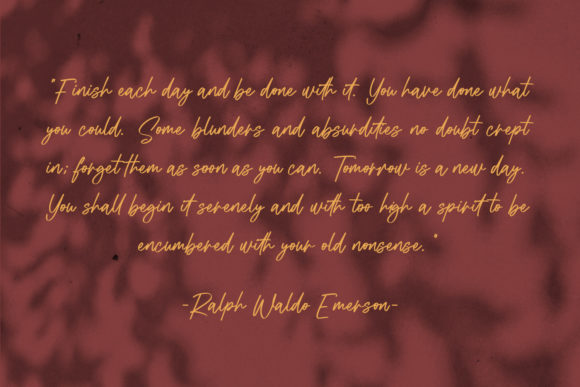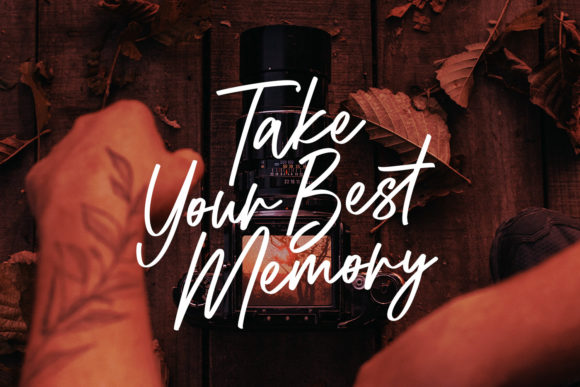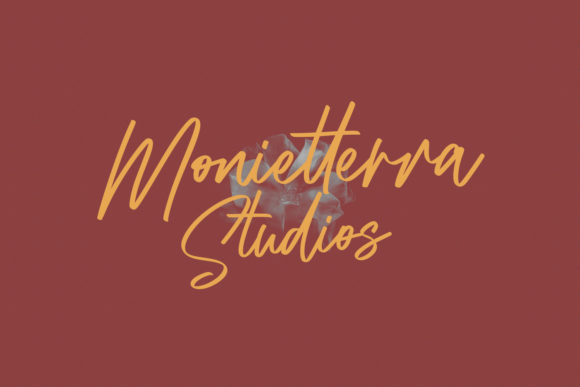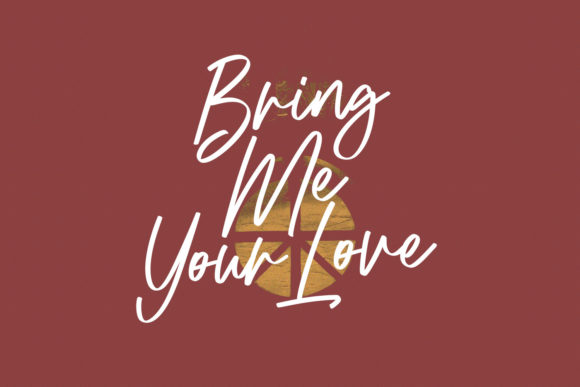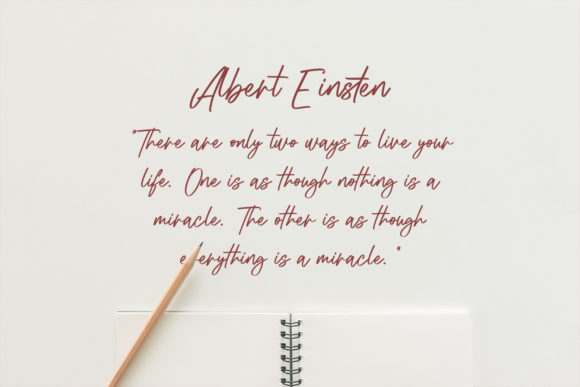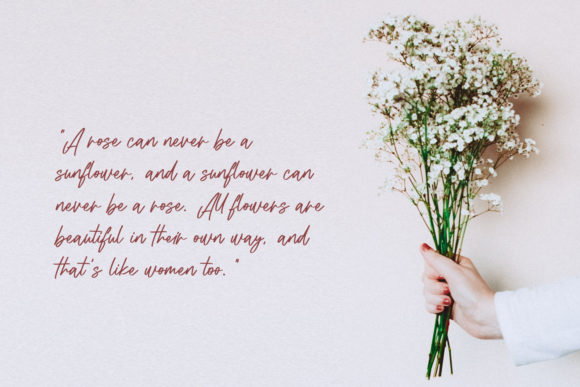
Introduction to Smorebucklys Font Font
Fonts play a crucial role in design, and the Smorebucklys Font font is a typeface that brings both character and versatility to any project. Whether you’re working on a branding project, a website, or a print design, the Smorebucklys Font font offers a unique style that can elevate your work.
Smorebucklys is a stylish and cursive script font.
No matter the topic, this font will be an incredibly asset to your fontsβ library, as it has the potential to elevate any creation .
Key Features of Smorebucklys Font Font
Why Choose Smorebucklys Font Font?
The Smorebucklys Font font is more than just a typeface β it’s a design tool that helps you communicate your message with style and clarity. Its unique character set and versatile design make it suitable for a wide range of applications, from elegant invitations to bold headlines.
With its carefully crafted letterforms and balanced proportions, the Smorebucklys Font font ensures readability and visual appeal across all mediums.
What makes Smorebucklys Font font special?
The Smorebucklys Font font stands out with its unique design, exceptional readability, and versatility across various design applications.